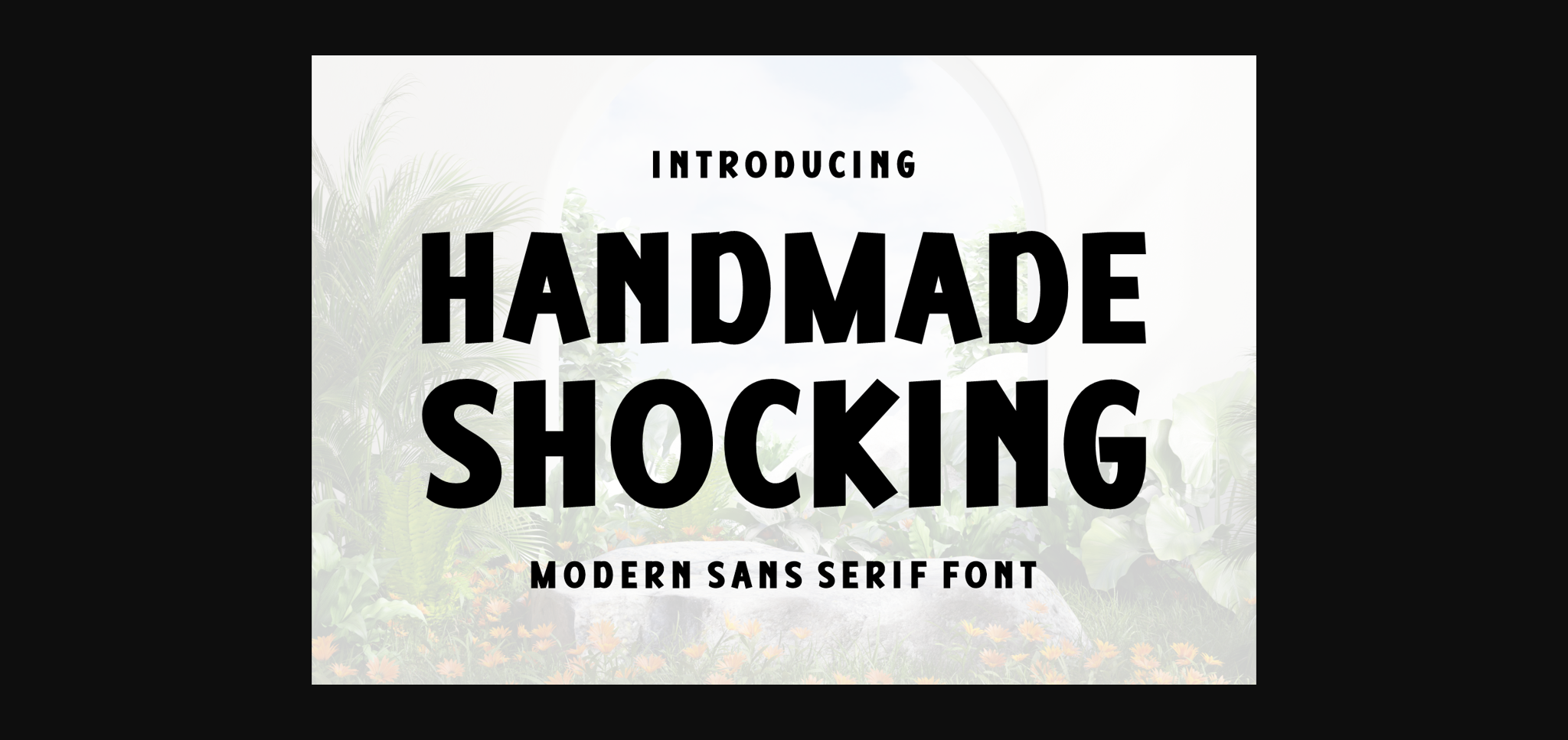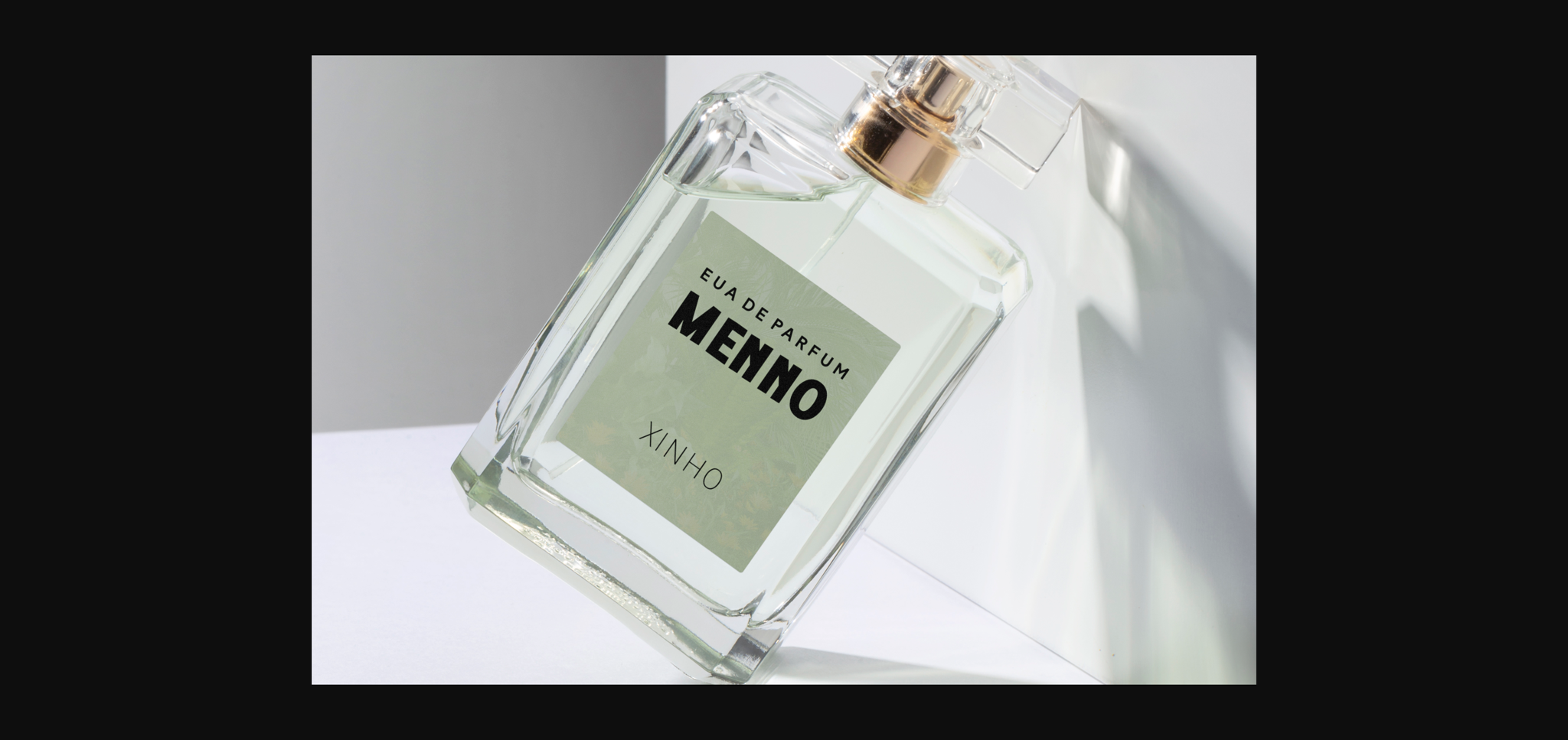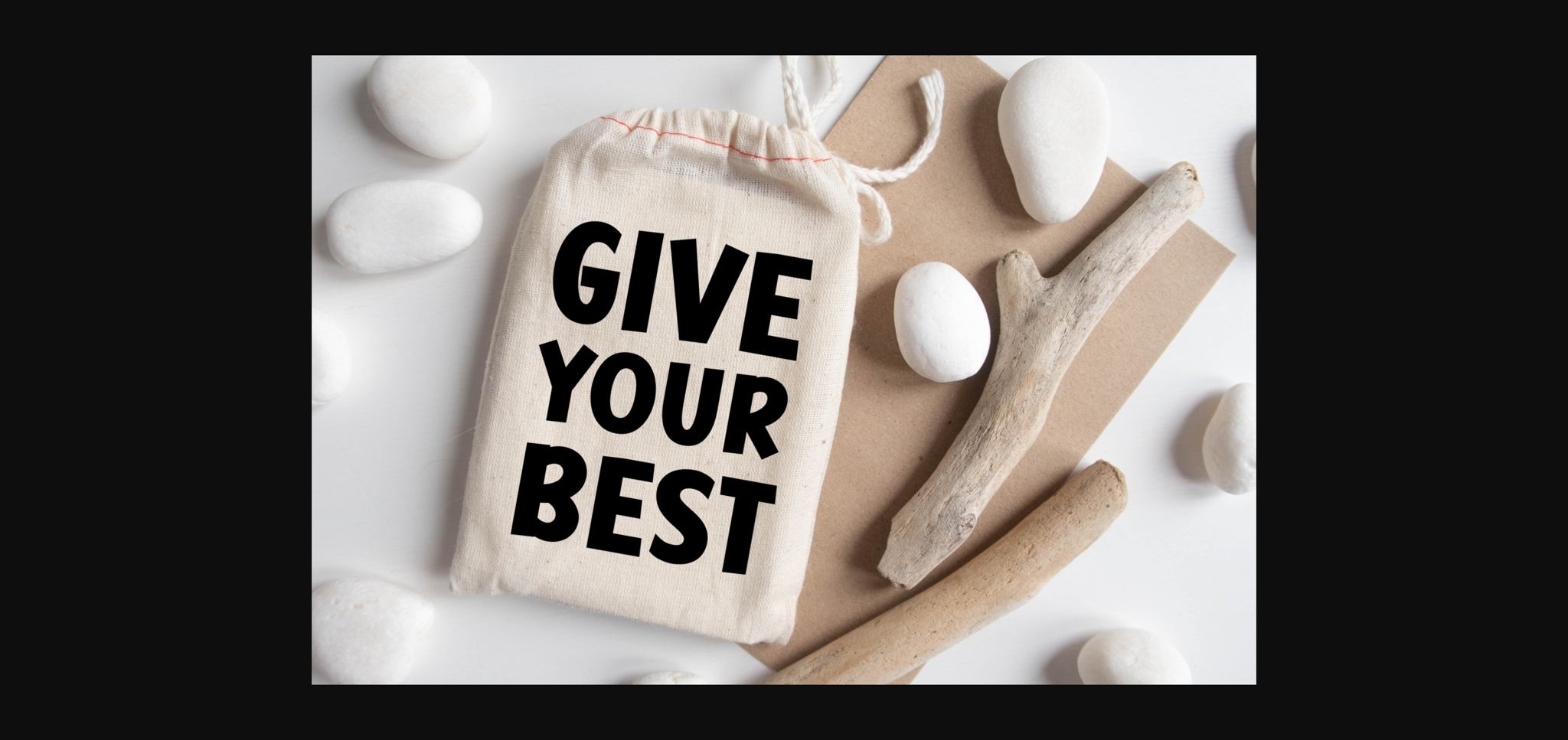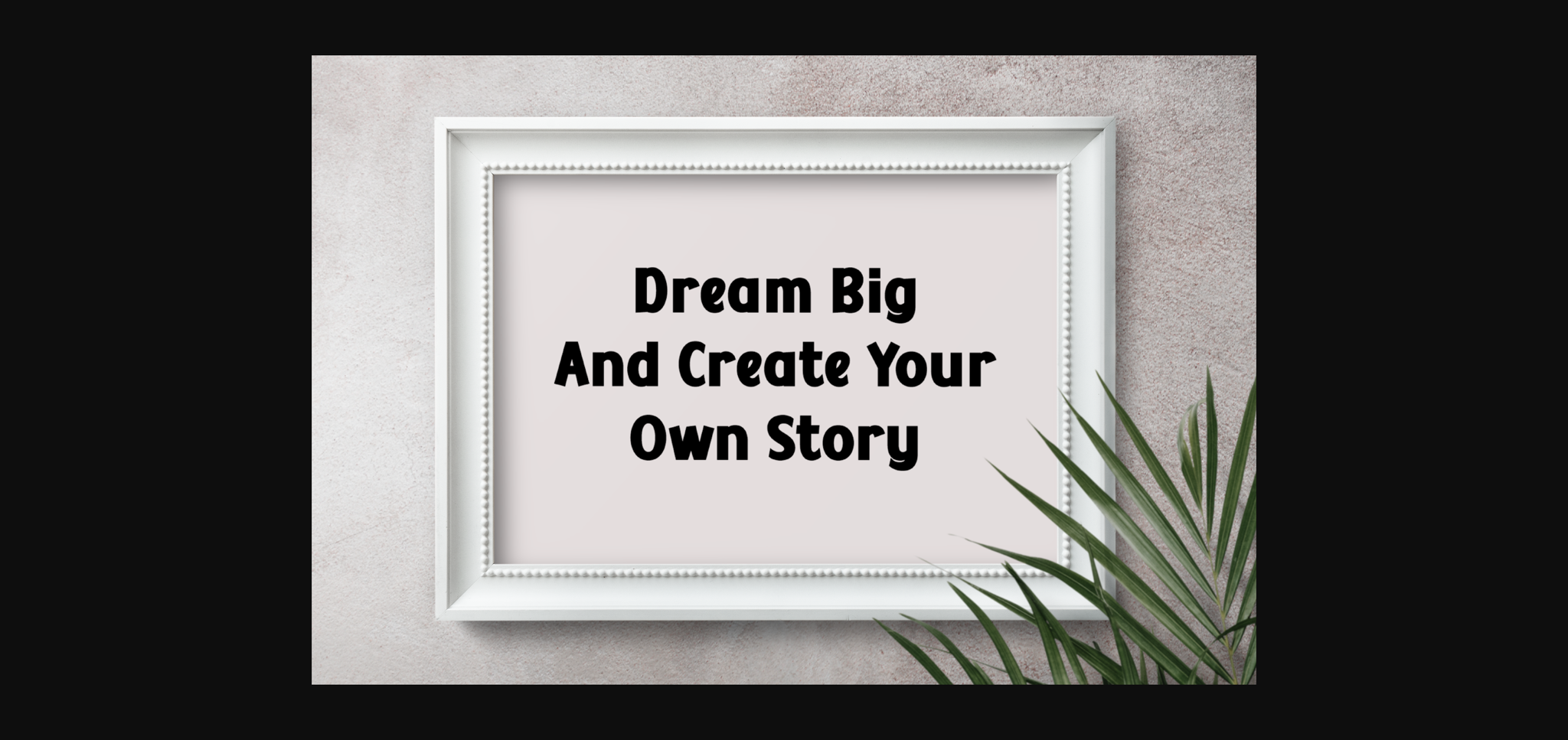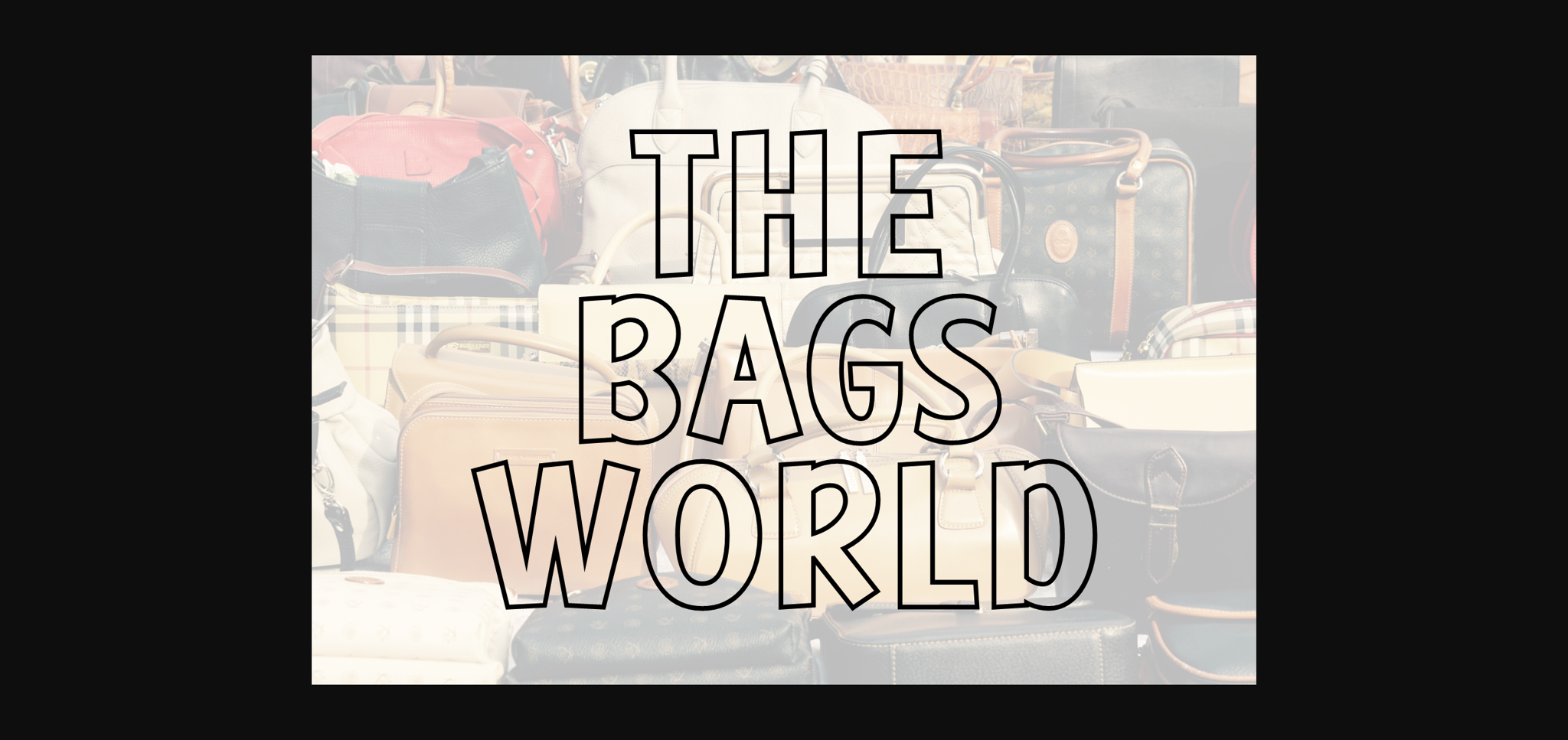
Handmade Shocking is a bold and assertive sans serif font. No matter the topic, this font will be an incredible asset to your fonts’ library, as it has the potential to elevate any creation.